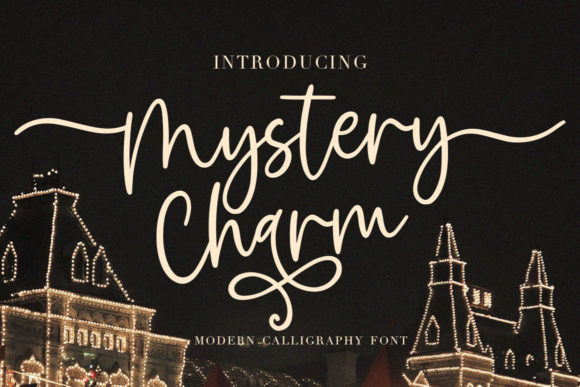
About Mystery Charm Font
Mystery Charm is a romantic and modern calligraphy typeface with characters that dance along the baseline. It looks alluring on wedding invitations, holidays cards, quotes, greeting cards, logos, business cards and every other design which needs a customized vibe.